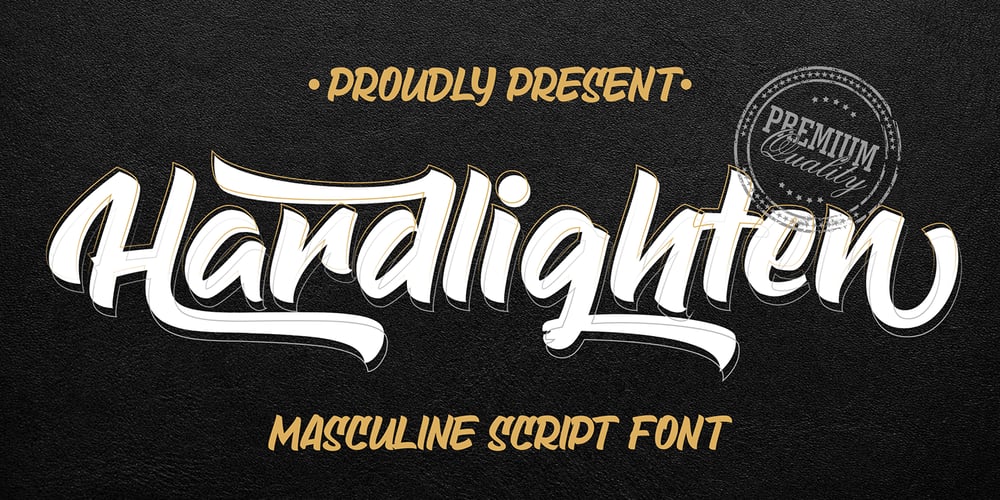
Hardlighten Font Family was designed by Icep Anwar Fadhil and published by Figuree Studio. Hardlighten contains 1 styles and family package options. Hello, This is Hardlighten!Hardlighten comes from hand scratches to get natural writing. With the main style of the hand-lettering script, it will be very interesting if it is added with a variety of Alternates and also Stylistic Sets that are very suitable. The Hardlighten is very suitable for use in various media such as; packaging, logos, labels, posters, shirt designs, wisdom quotes, bulletins, typography, and many other media.Features Ligature Stylistic Alternates, Stylistic Sets (SS01-SS03) PUA Encoded open Support for MAC or PC Simple installation for Adobe Illustrator, Corel Draw, Photoshop, or Procreate (New Updated) Support Multilanguage That’s it! If you have any questions don’t hesitate to ask! .Stay Classy!Fadhil – Figuree Studio